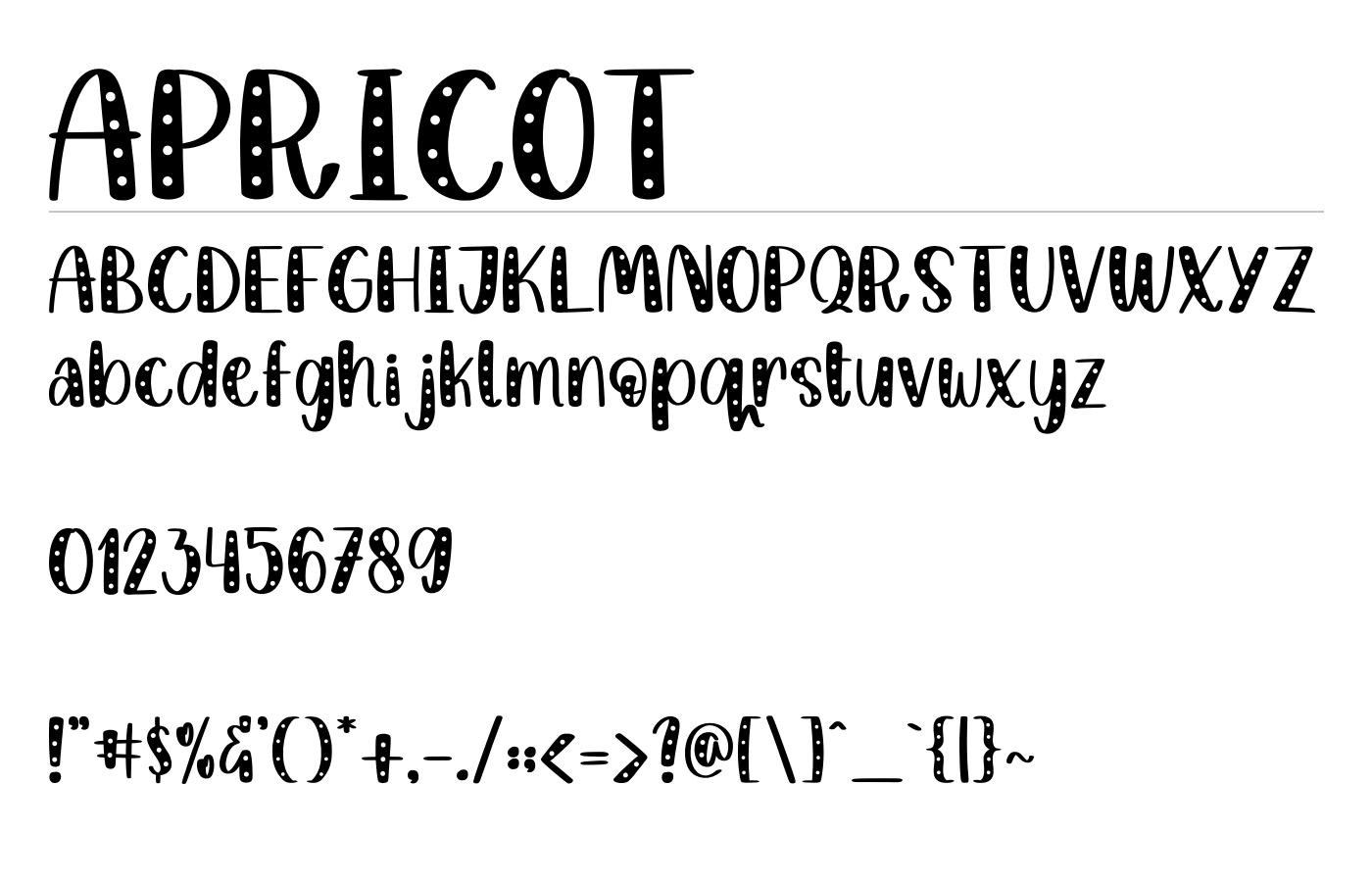
APRICOT is a playful, decorative sans serif font featuring tall, narrow letterforms with whimsical dotted details that give it a hand-crafted, cheerful vibe. Its light to regular weight and quirky shapes make it ideal for fun, casual designs such as invitations, children’s products, or creative branding looking to convey friendliness and charm. This font works best in headlines or short phrases where its unique personality can shine and engage viewers.
| Font family | APRICOT Font |
| Designer | Mozatype |